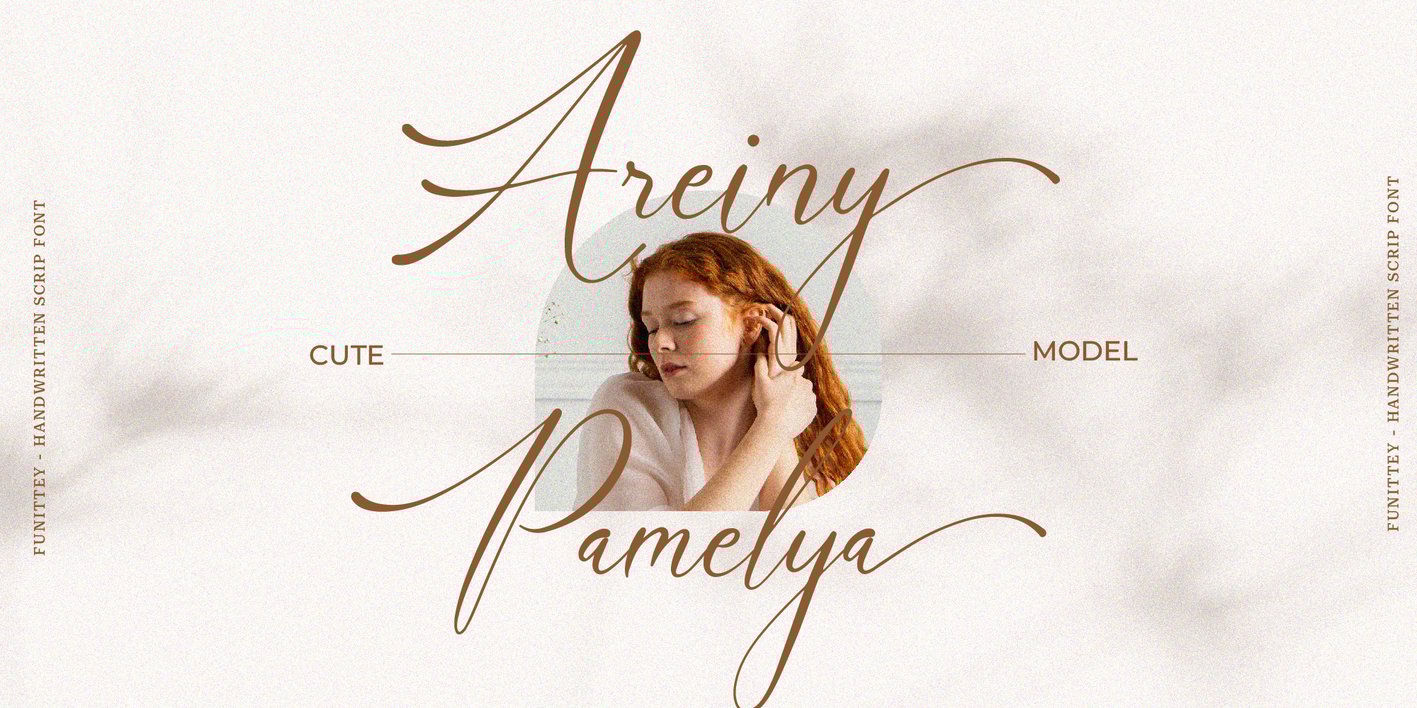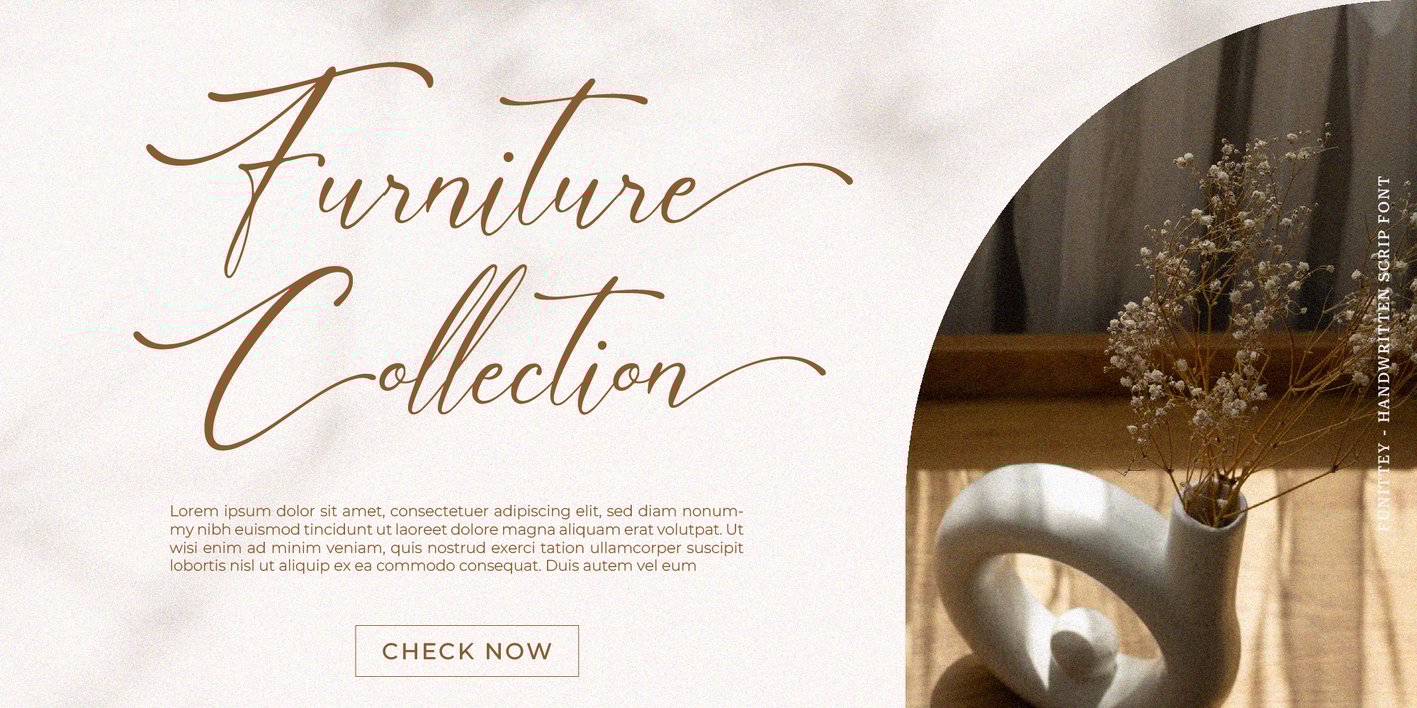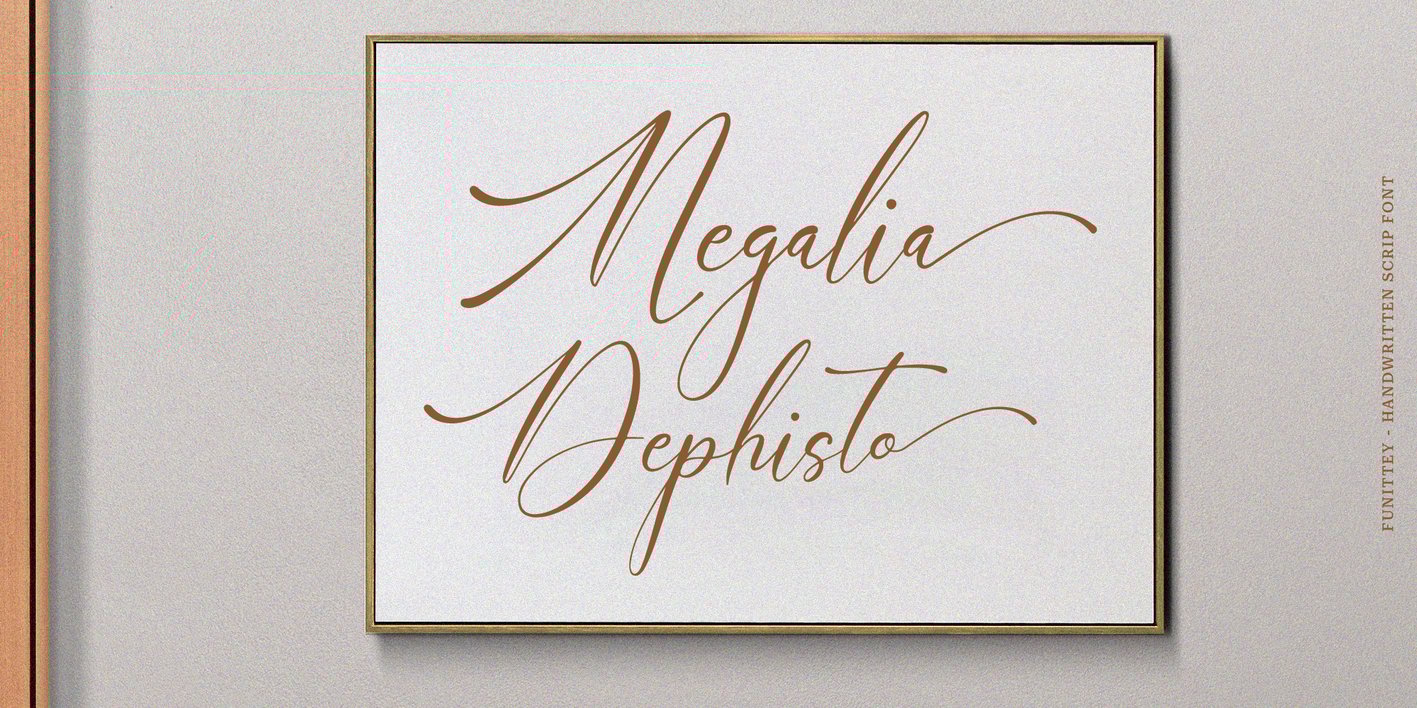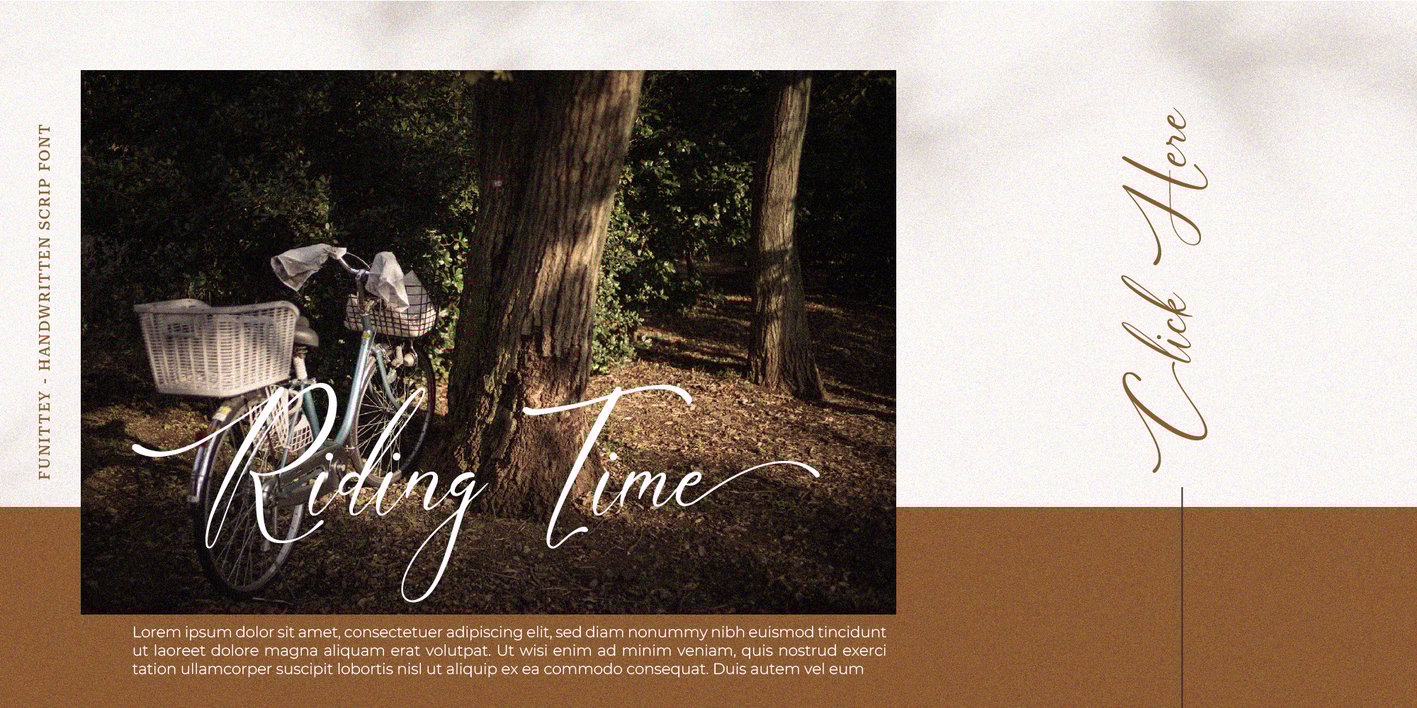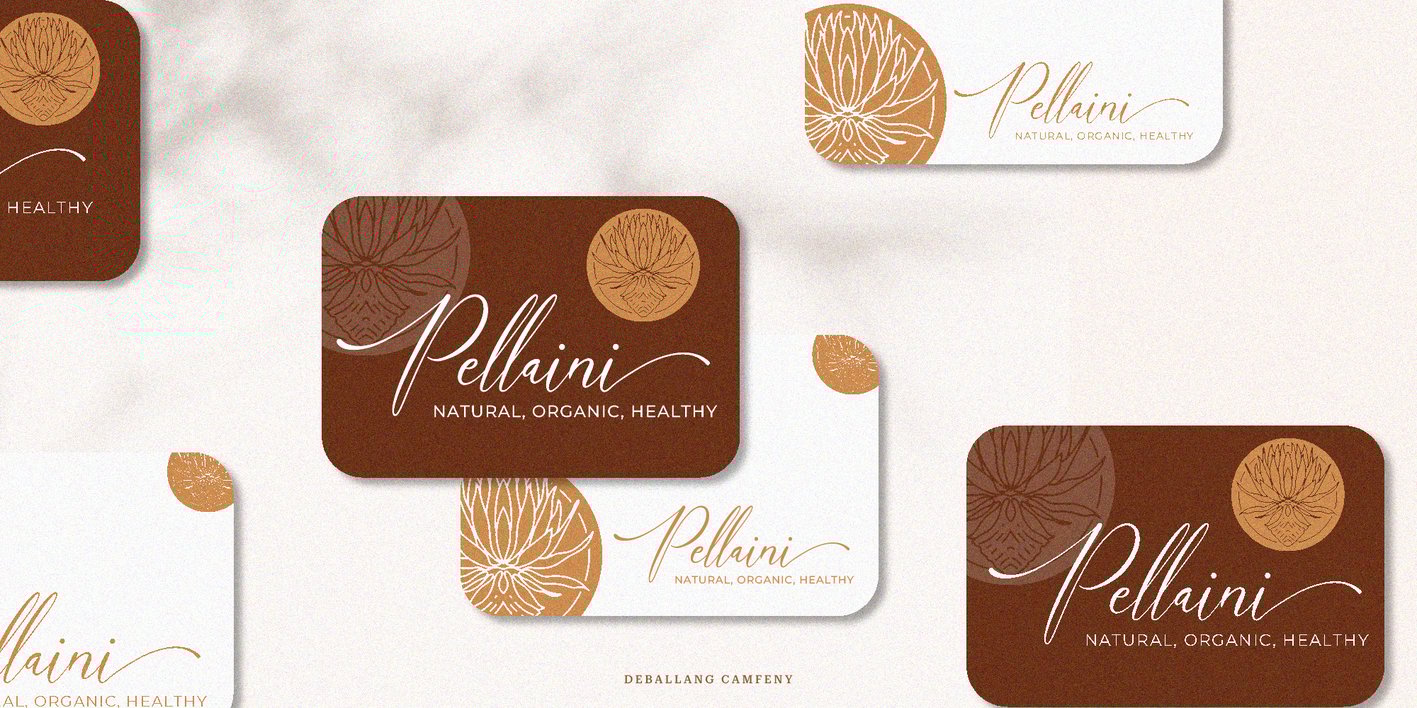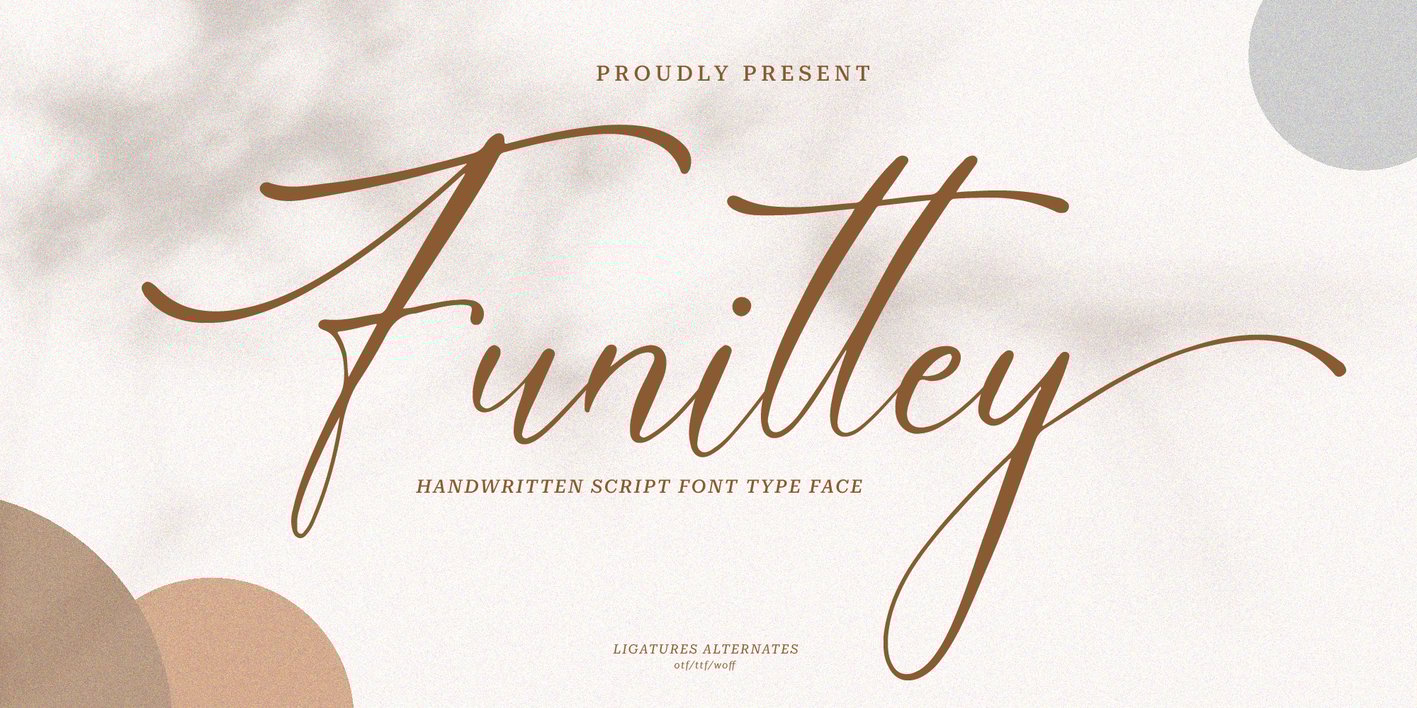
Funittey Font
Funittey – Classy Script, from Gracetypestudio, suitable for any projects such as: logos, branding projects, homeware designs, product packaging, mugs, quotes, posters, shopping bags, t-shirts, book covers, name card, invitation cards, greeting cards, label, photography, watermark, special events, and all your other lovely projects that need a beautiful script taste.